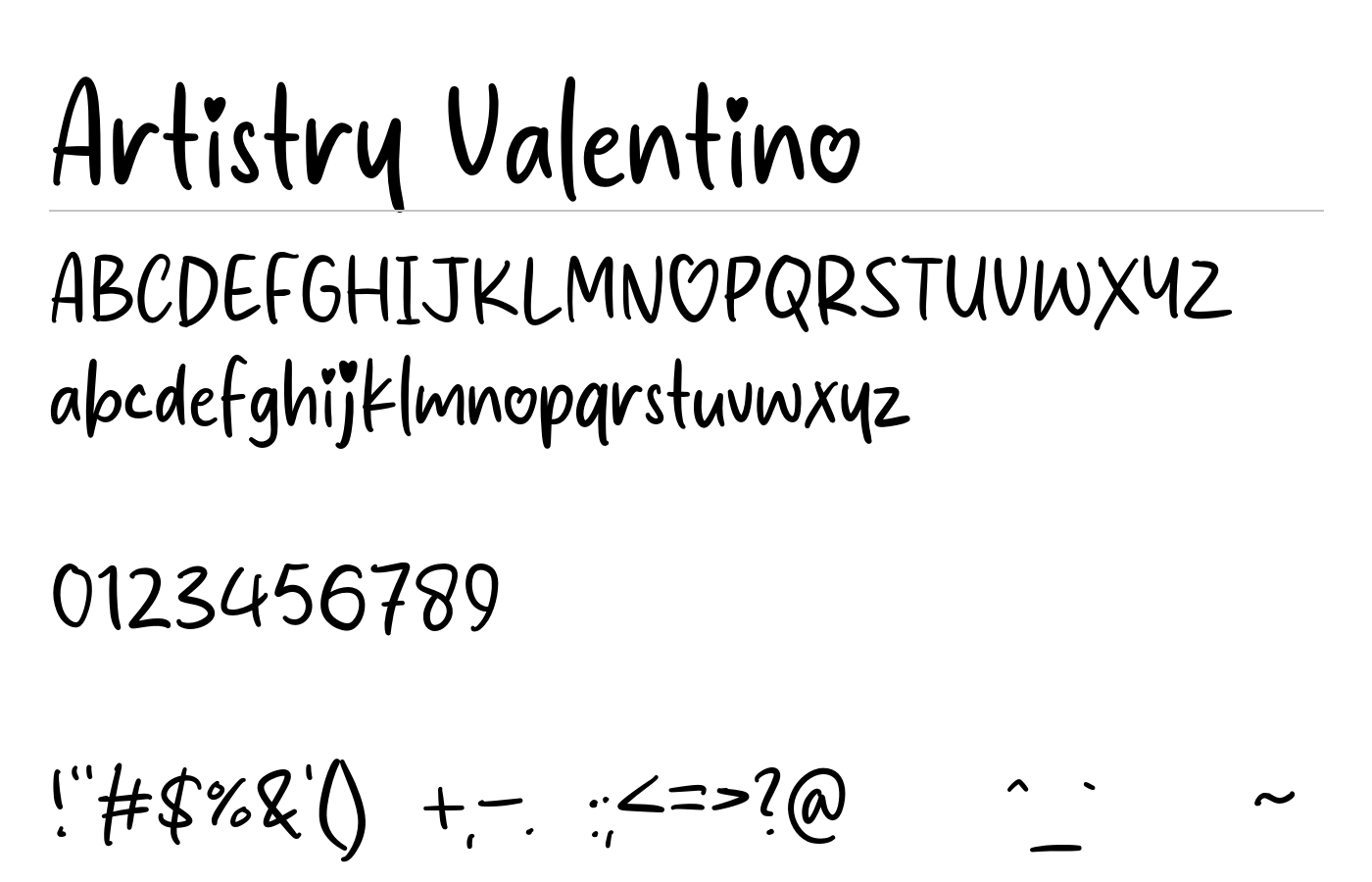
Artistry Valentino is a playful, handwritten sans serif font characterized by its casual, friendly strokes and charming heart-shaped details in certain letters. Its medium weight and slightly tall x-height give it good readability while maintaining a personal, artistic touch. This font works well for creative projects, casual branding, and invitations, lending a warm and approachable vibe wherever it’s used.
Artistry Valentino Font
About Artistry Valentino Font